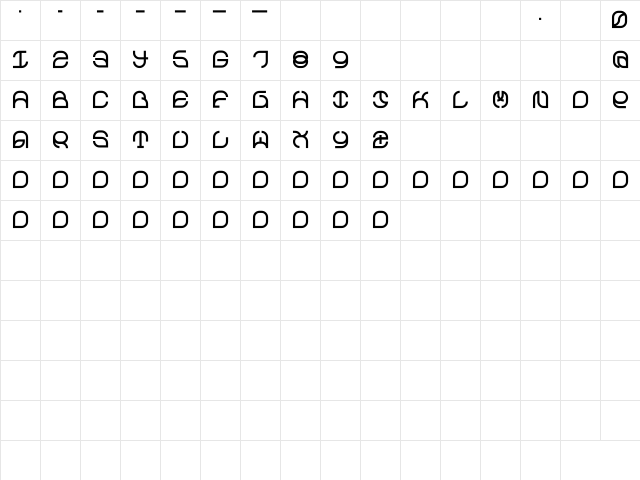
Z_exMastang Regular
Design Context for Z_exMastang
Z_exMastang is a composed and adaptable typeface that performs quietly and consistently across a wide range of design contexts.
Pro Tip: Use Z_exMastang in both headline and body roles to test its range before committing to a single application.